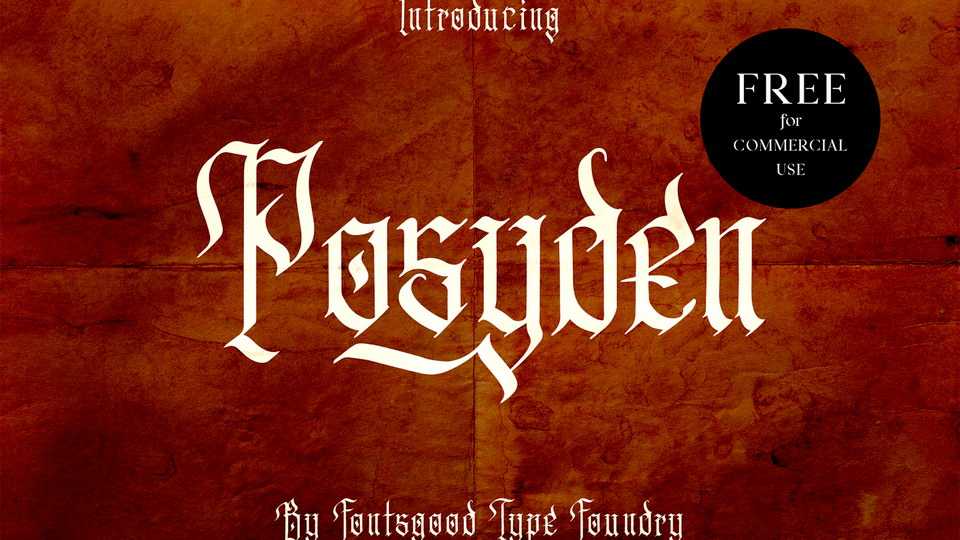
Download Posyden font, a hand drawn black letter typeface with a touch of classic old English vibes from 17th century for your designs.
Designer: Fontsgood